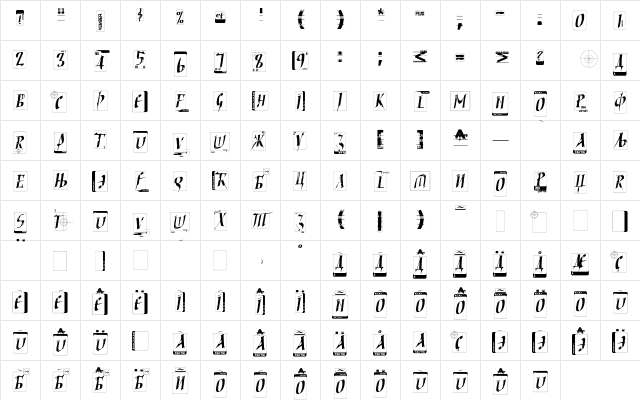
Phlax Cyrillic Free Font
Phlax Cyrillic
Style: Cyrillic
Complete Phlax Cyrillic glyph index. Displaying only characters natively supported by Phlax Cyrillic font.
Design Context for Phlax
Phlax is a composed and adaptable typeface that performs quietly and consistently across a wide range of design contexts.